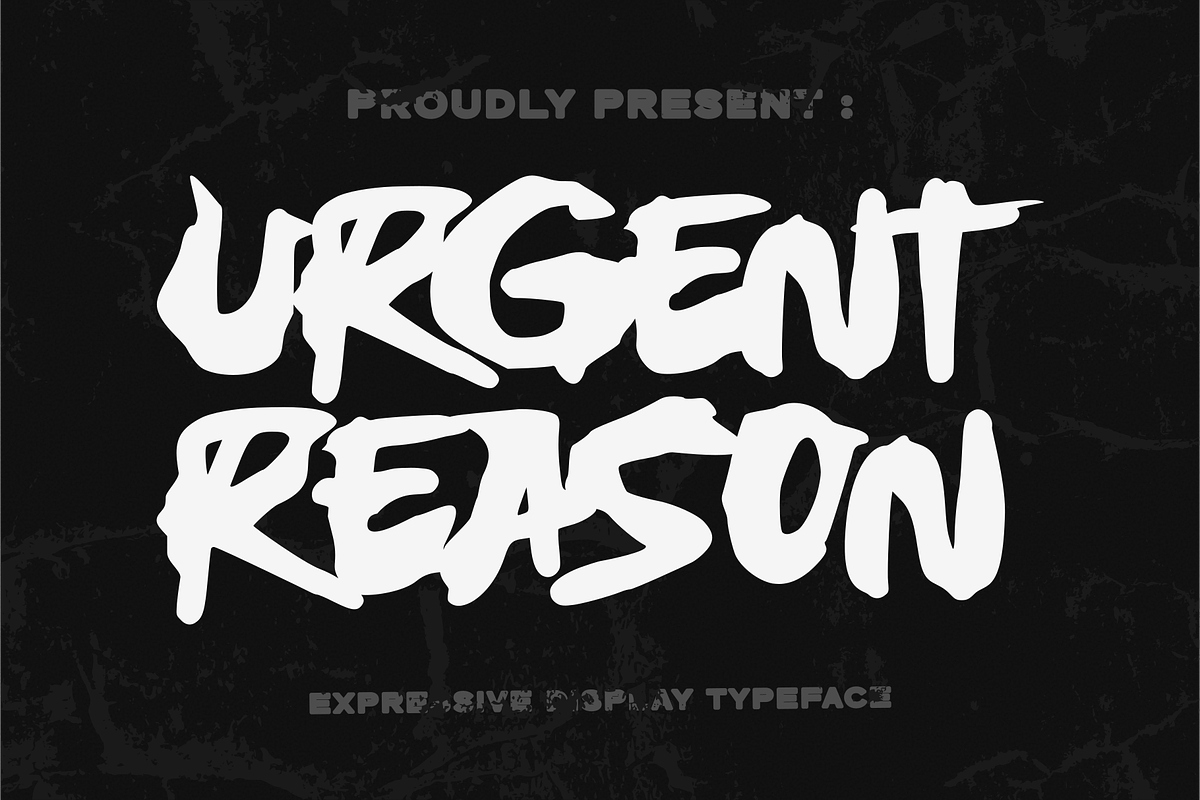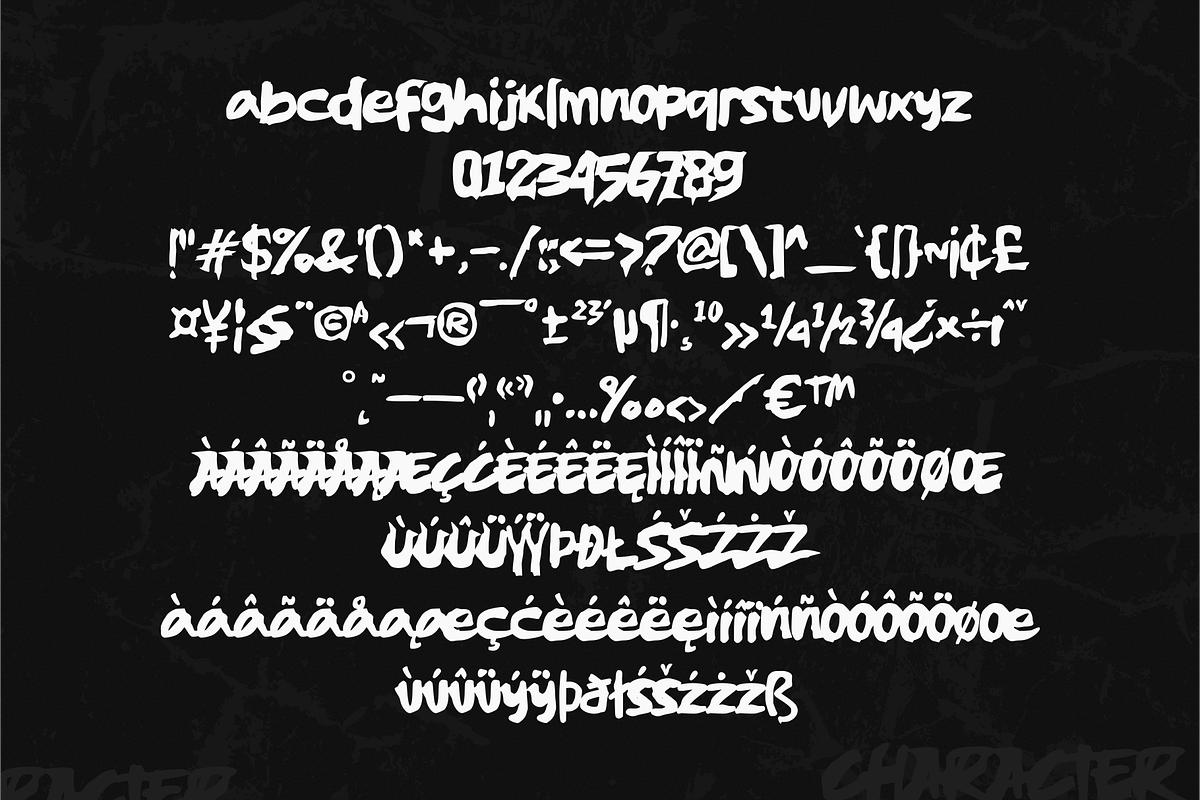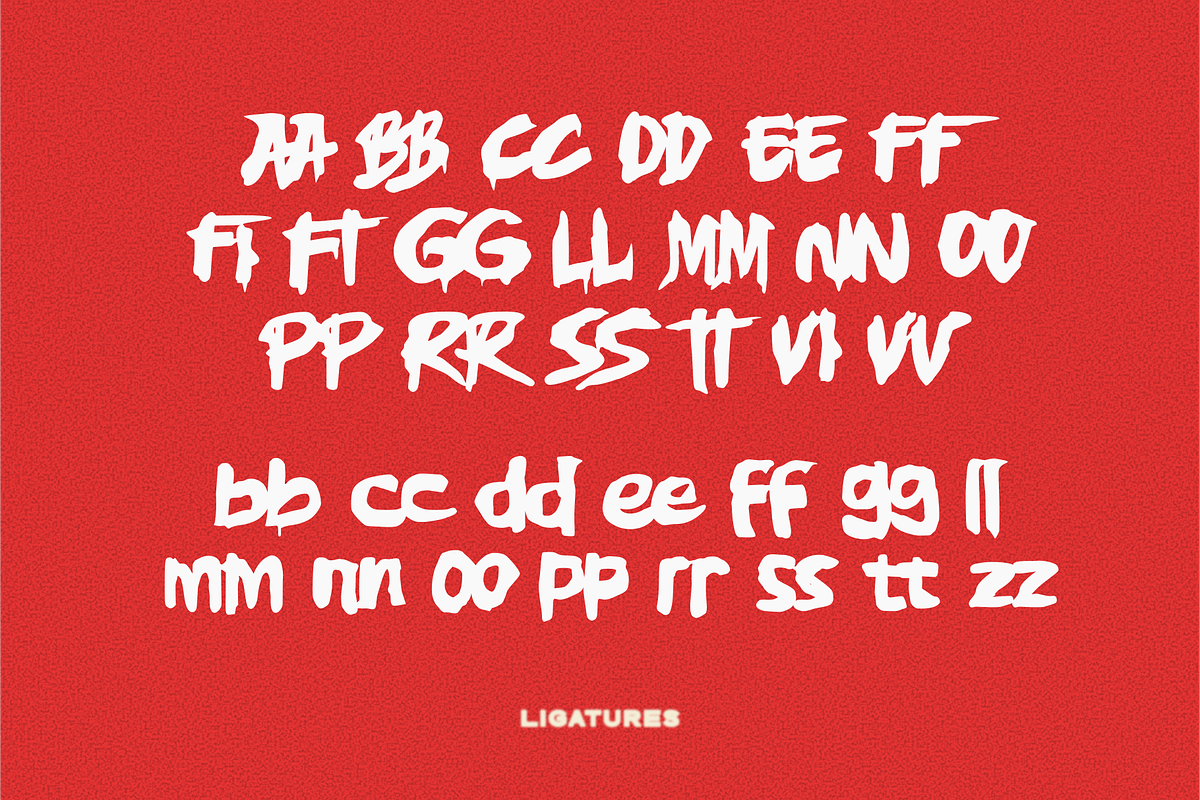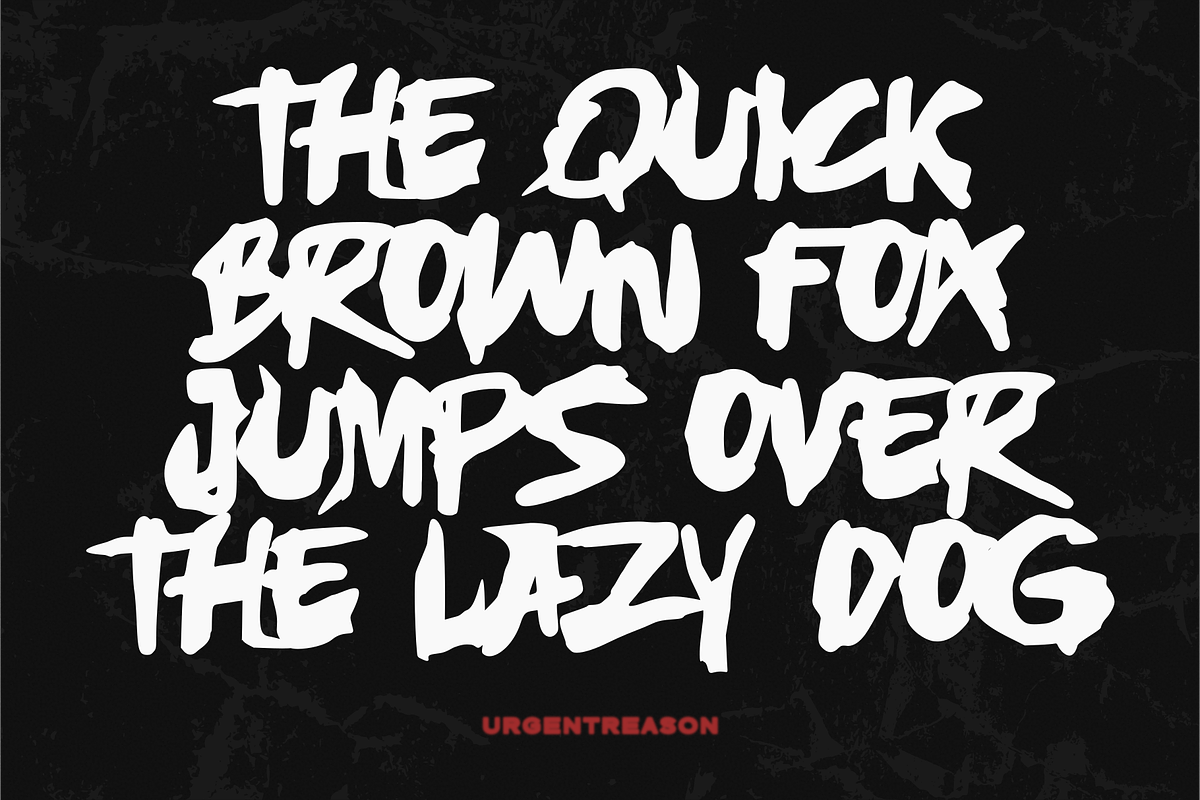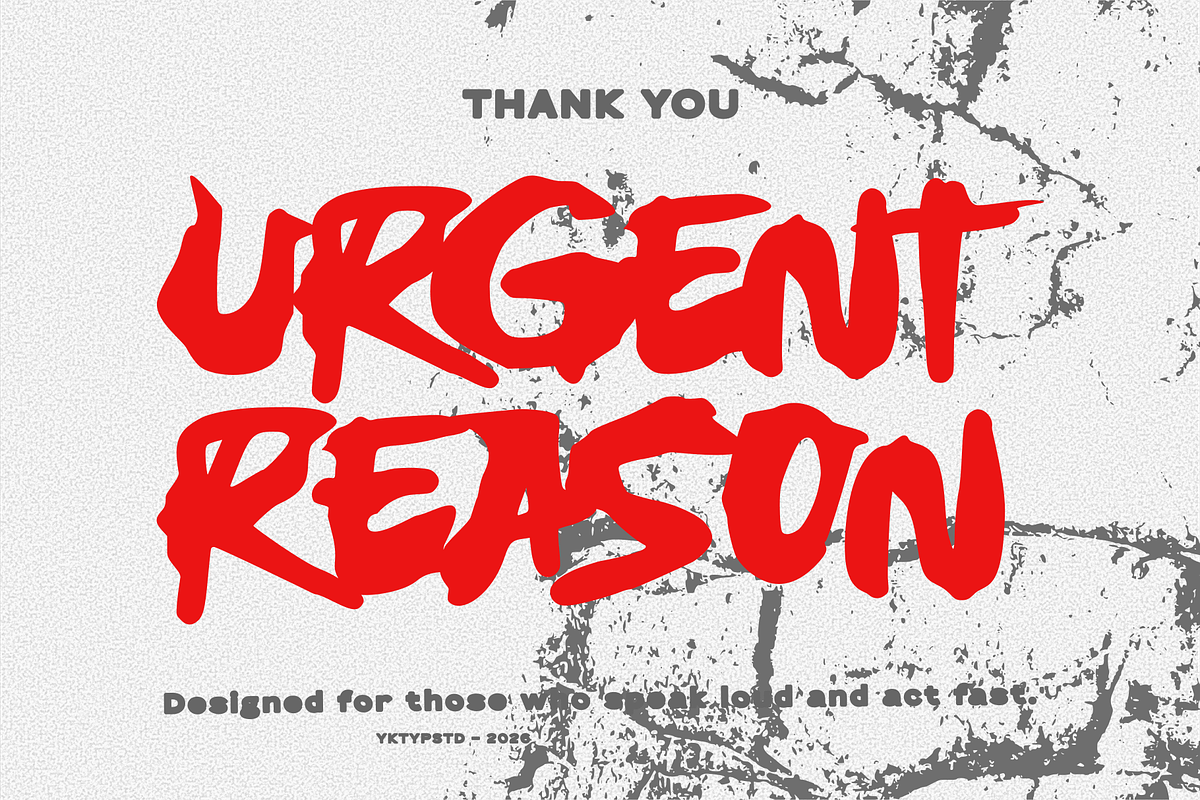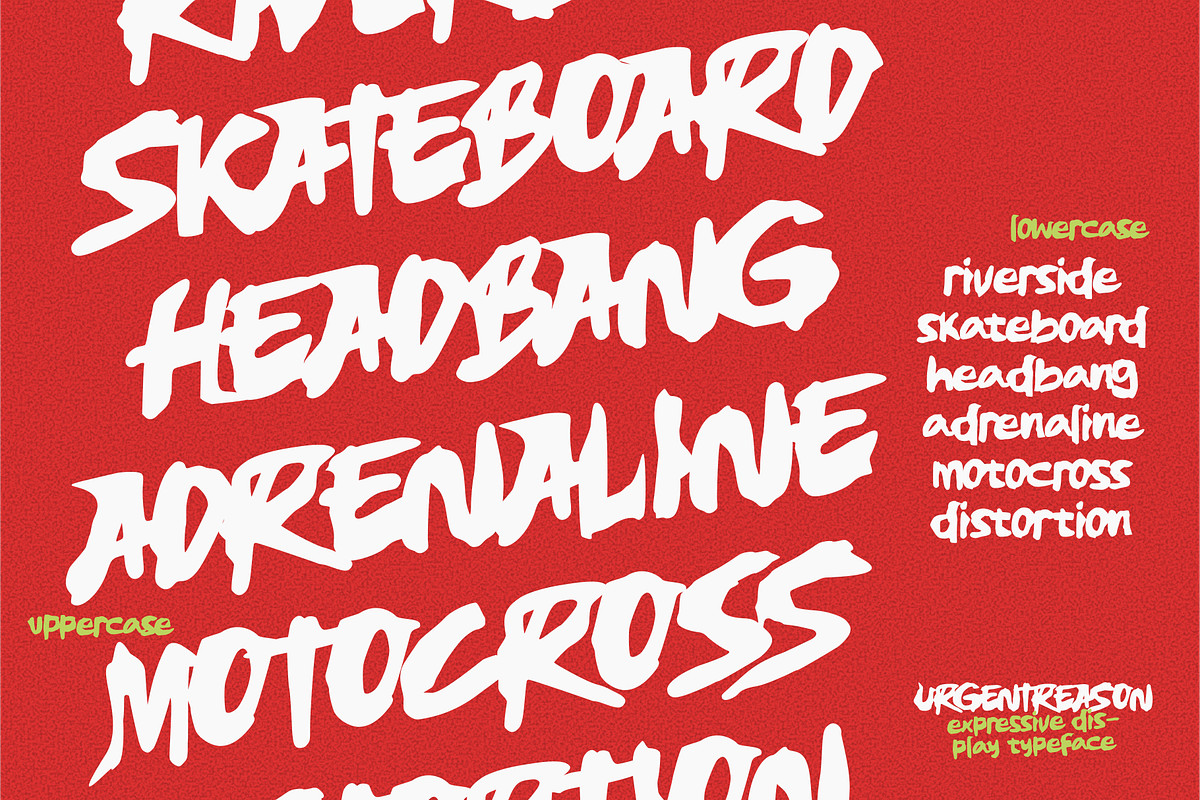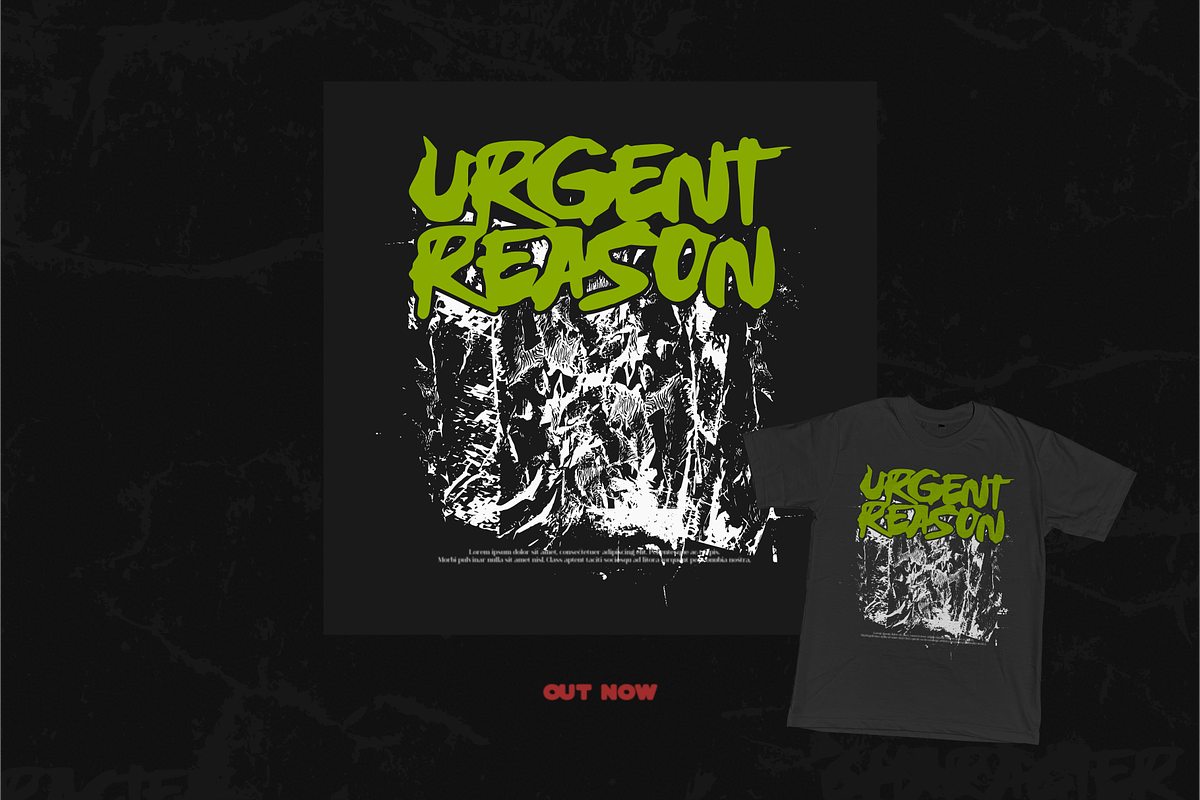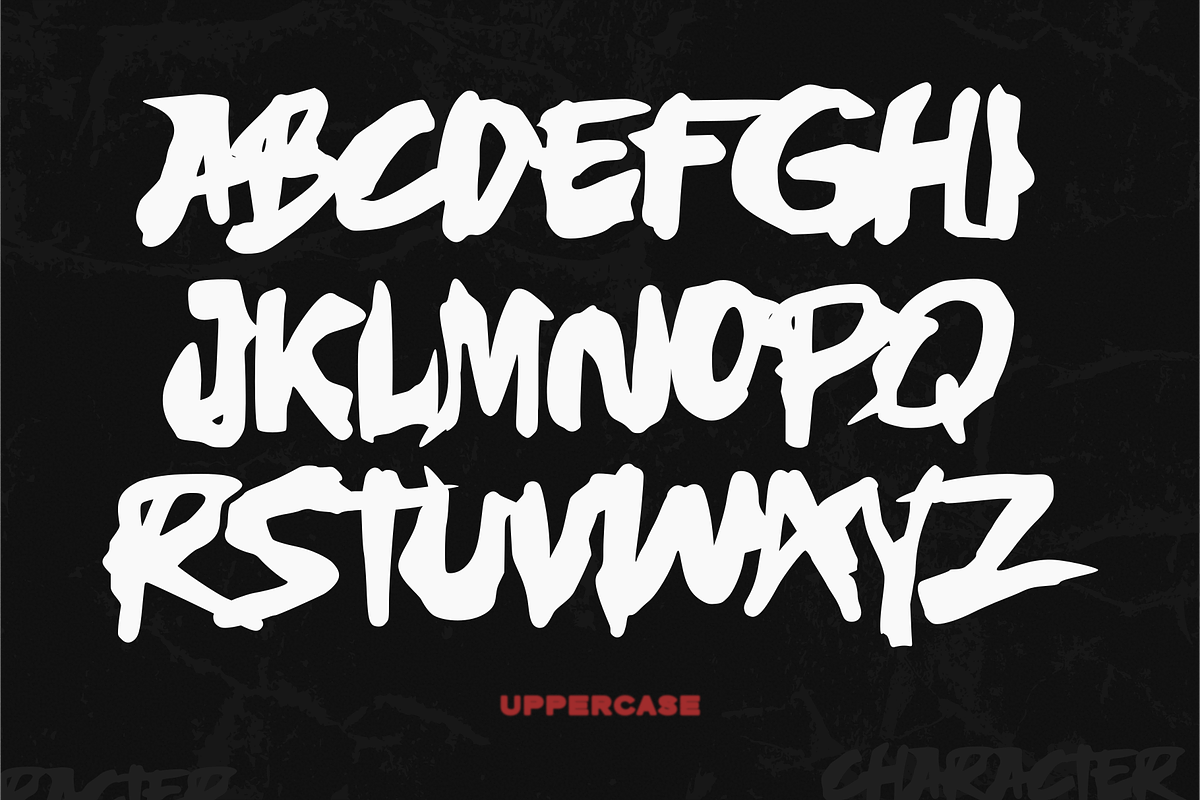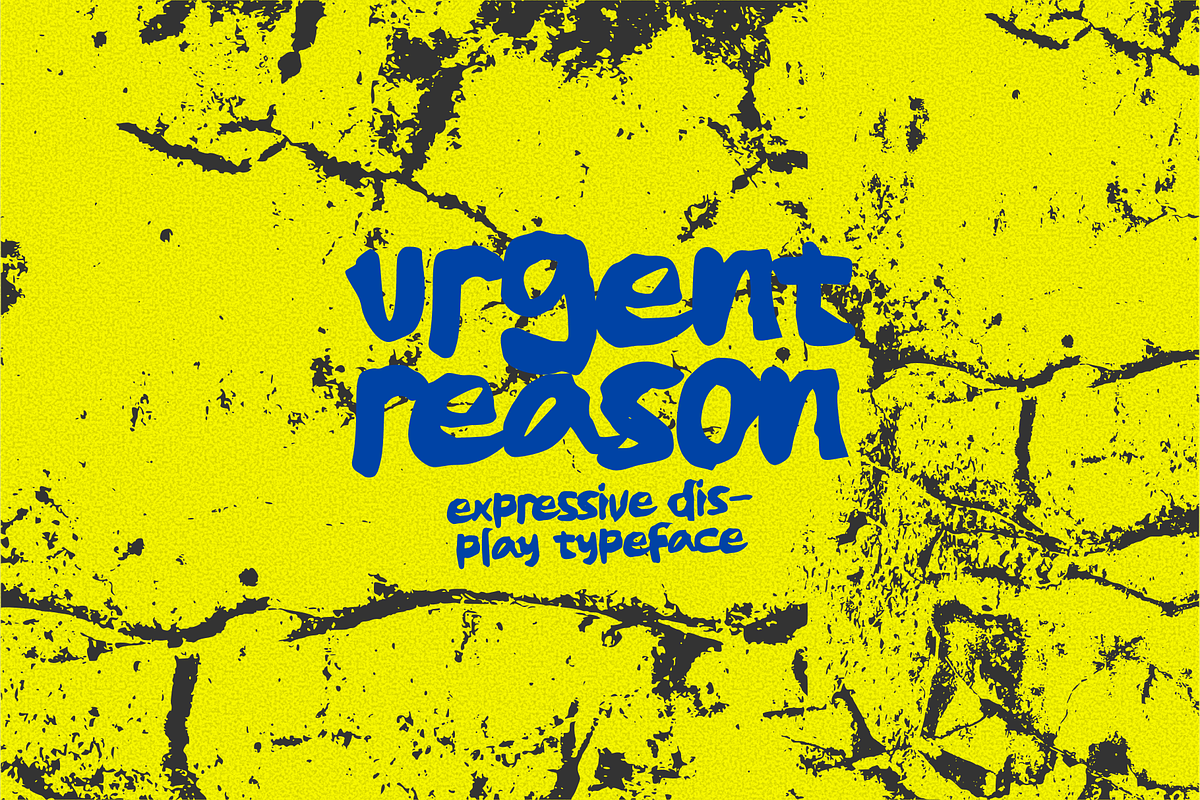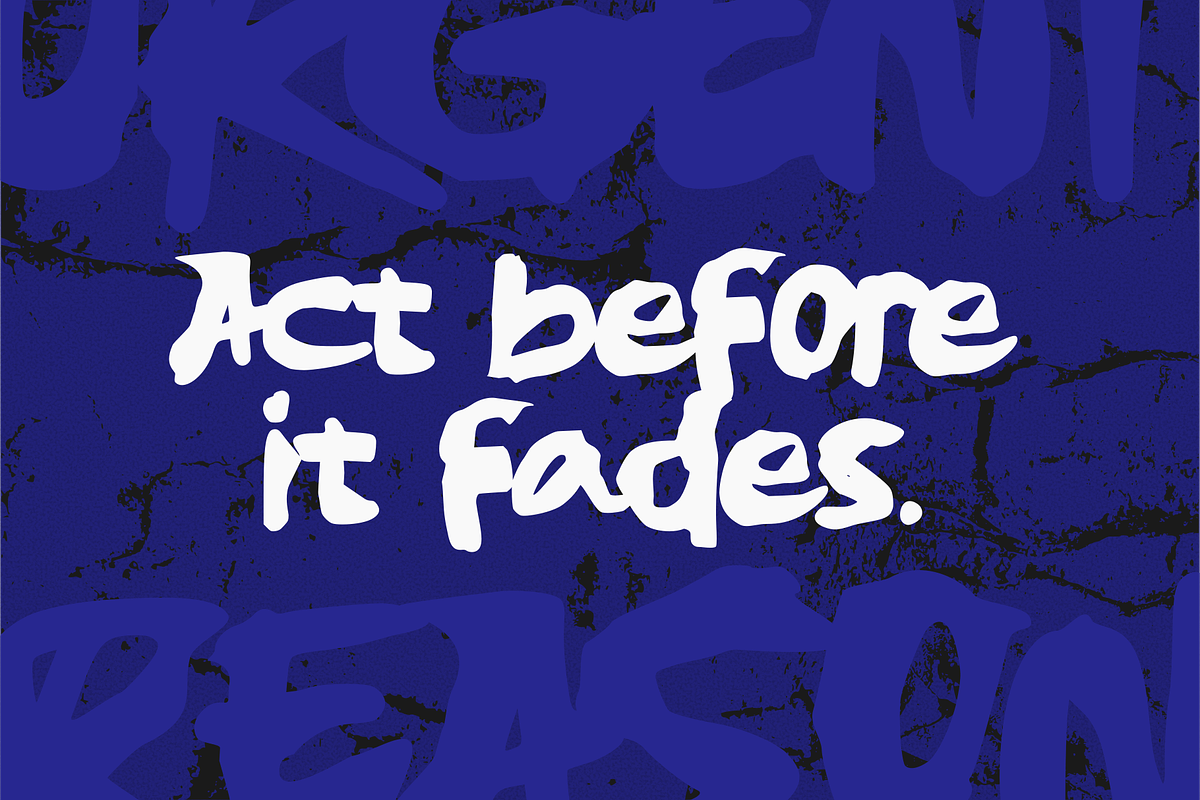
Urgent Reason
Urgent Reason — Raw, Bold Display Typeface
Urgent Reason by Yktypstd is a bold, expressive display typeface. Inspired by underground rock and alternative music, it embodies a raw, rebellious spirit. Designed to make a statement, this font brings a high-energy, aesthetic vibe to any project.